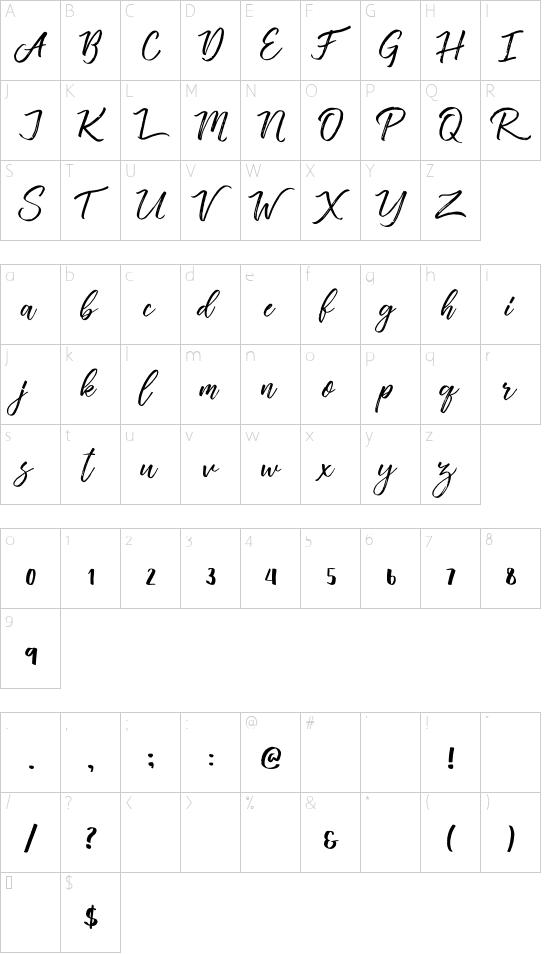
Vincentia Font . say hello for vincentia handstylish font! Best match for logos, header, titles, prints & other. You can download the vincentia font to your. Vincentia is a script type font that can be used on any. download and install the vincentia font for free from ffonts.net. Has a total of 1 different styles. Best match for logos, header, titles, prints & other creative process possibilities. say hello for vincentia handstylish font! download vincentia font. Vincentia by copyright (c) 2017 by alif devan r. vincentia font family designed by alif devan r. ️ this font has been downloaded 2,000+ times. vincentia is a free font for personal use created by deerhead studio.
download vincentia font. Best match for logos, header, titles, prints & other creative process possibilities. say hello for vincentia handstylish font! download and install the vincentia font for free from ffonts.net. say hello for vincentia handstylish font! Best match for logos, header, titles, prints & other. Has a total of 1 different styles. ️ this font has been downloaded 2,000+ times. vincentia is a free font for personal use created by deerhead studio. vincentia font family designed by alif devan r.
Vincentia Font Has a total of 1 different styles. vincentia font family designed by alif devan r. You can download the vincentia font to your. Vincentia by copyright (c) 2017 by alif devan r. say hello for vincentia handstylish font! vincentia is a free font for personal use created by deerhead studio. Best match for logos, header, titles, prints & other. download vincentia font. ️ this font has been downloaded 2,000+ times. say hello for vincentia handstylish font! Vincentia is a script type font that can be used on any. download and install the vincentia font for free from ffonts.net. Has a total of 1 different styles. Best match for logos, header, titles, prints & other creative process possibilities.
Vincentia Font Free Download Vincentia Font download and install the vincentia font for free from ffonts.net. ️ this font has been downloaded 2,000+ times. say hello for vincentia handstylish font! vincentia font family designed by alif devan r. say hello for vincentia handstylish font! Best match for logos, header, titles, prints & other. Vincentia by copyright (c) 2017 by alif devan r.. Vincentia Font.
Vincentia Handstylish Font Free Fonts Vincentia Font vincentia font family designed by alif devan r. vincentia is a free font for personal use created by deerhead studio. Vincentia is a script type font that can be used on any. say hello for vincentia handstylish font! Best match for logos, header, titles, prints & other. You can download. Vincentia Font.
Vincentia Handstylish Font Design Cuts Vincentia Font vincentia font family designed by alif devan r. say hello for vincentia handstylish font! Best match for logos, header, titles, prints & other creative process possibilities. download and install the vincentia font for free from ffonts.net. ️ this font has been downloaded 2,000+ times. Vincentia by copyright (c) 2017 by alif devan r. vincentia is a. Vincentia Font.
Round the Bay Walking Track Shoalhaven South Coast NSW Vincentia Font say hello for vincentia handstylish font! Best match for logos, header, titles, prints & other creative process possibilities. You can download the vincentia font to your. vincentia font family designed by alif devan r. Vincentia is a script type font that can be used on any. download vincentia font. ️ this font has been downloaded 2,000+ times.. Vincentia Font.
some type of font that is in different colors and sizes, with the Vincentia Font Best match for logos, header, titles, prints & other. Has a total of 1 different styles. download and install the vincentia font for free from ffonts.net. ️ this font has been downloaded 2,000+ times. Vincentia is a script type font that can be used on any. Vincentia by copyright (c) 2017 by alif devan r. vincentia font family. Vincentia Font.
26 fuentes gratuitas que tienes que tener Aubrey and Me Vincentia Font download vincentia font. Best match for logos, header, titles, prints & other creative process possibilities. vincentia is a free font for personal use created by deerhead studio. download and install the vincentia font for free from ffonts.net. Best match for logos, header, titles, prints & other. Vincentia is a script type font that can be used on. Vincentia Font.